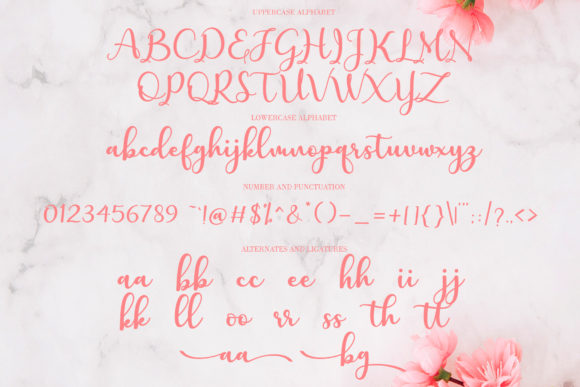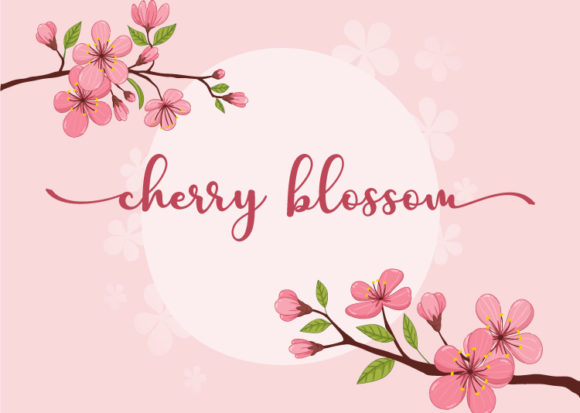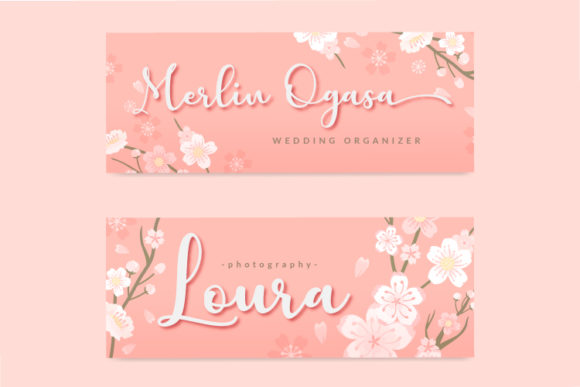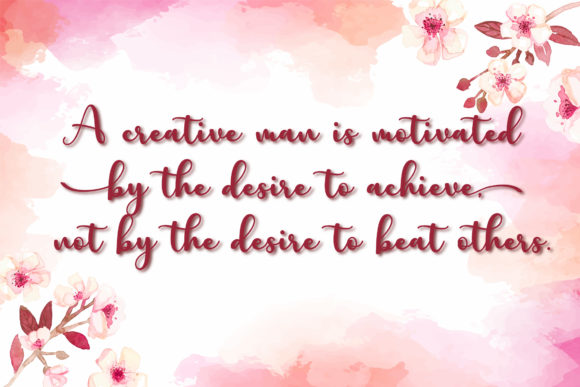
Discover the Charm of Charlotte Font: A Unique Blend of Classic and Modern
In the world of typography, fonts play a crucial role in conveying the tone and personality of a brand, product, or event. For designers and crafters, finding the perfect font can be a daunting task, especially when it comes to creating unique and eye-catching visual content. This is where the Charlotte font comes in – a beautiful, one-of-a-kind typeface that seamlessly blends classic and modern elements.
The Characteristics of Charlotte Font
The Charlotte font is an exquisite combination of traditional and contemporary design principles. Its most distinctive feature is the dancing letters, which give it an imperfect yet charming style. This unique characteristic makes it perfect for creating visually appealing and hand-crafted designs. The clean and simple style of Charlotte font ensures that it can be used in a wide range of applications, from elegant wedding invitations to modern logos and branding materials.
Uses of Charlotte Font
The versatility of Charlotte font is one of its most significant advantages. Its uses are endless, and it can be applied to various design projects, including:
- Weddings and Events: Create stunning wedding invitations, escort cards, table numbers, and headers that set the tone for a memorable event.
- Branding and Logos: Use Charlotte font to craft unique and recognizable logos, perfect for businesses looking to establish a distinctive identity.
- Menus and Displays: Add a touch of elegance to menus, display boards, and slider blogs with this beautiful font.
- Custom Address and Stamps: Personalize your correspondence with custom addresses and stamps featuring the Charlotte font.
- Packaging: Elevate your product packaging with a sophisticated and eye-catching design.
Why Choose Charlotte Font?
So, what makes Charlotte font a top choice among designers and crafters? Here are a few reasons:
- Unique and Distinctive: The Charlotte font’s dancing letters and imperfect style set it apart from more traditional fonts.
- Versatile: Its clean and simple design makes it suitable for a wide range of applications.
- Elegant and Sophisticated: The Charlotte font exudes a sense of refinement and luxury, perfect for high-end branding and design projects.
- Easy to Read: Despite its unique style, the Charlotte font remains highly legible, ensuring that your message is conveyed clearly.
Tips for Using Charlotte Font Effectively
To get the most out of the Charlotte font, consider the following tips:
- Pair it with Complementary Fonts: Combine Charlotte font with other fonts to create a harmonious and visually appealing design.
- Use it Sparingly: While the Charlotte font is beautiful, using it sparingly can make it more effective and prevent it from becoming overwhelming.
The Charlotte font is a true gem in the world of typography. Its unique blend of classic and modern elements, combined with its versatility and elegance, make it an excellent choice for designers and crafters. Whether you’re working on a wedding invitation, logo, or packaging design, the Charlotte font is sure to add a touch of sophistication and charm. So why not give it a try and discover the magic of Charlotte font for yourself?